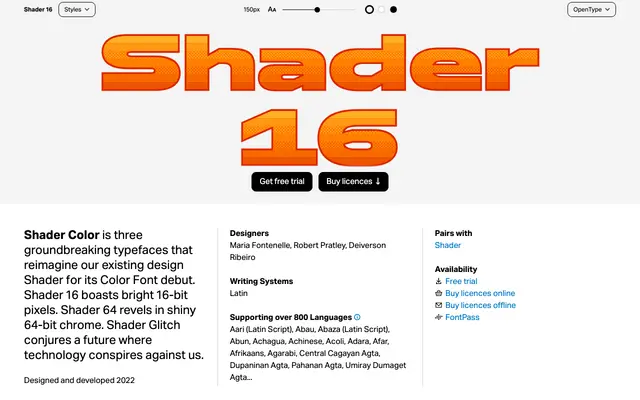
Shader Color
Dalton Maag · Maria Fontenelle, Robert Pratley, Deiverson Ribeiro · 2022
A trio of colour fonts by Maria Fontenelle, Robert Pratley and Deiverson Ribeiro that take the Shader gaming sans into 16-bit pixels, 64-bit chrome and glitch.
A colour-font extension of the Shader esports family by Maria Fontenelle, Robert Pratley and Deiverson Ribeiro. Three styles cover Shader 16 with bright 16-bit pixel artwork, Shader 64 in shiny 64-bit chrome and Shader Glitch with a corrupted, distorted treatment. Each style ships as a single colour font intended for posters, broadcast graphics, esports identity and any gaming context that wants ready-made texture rather than a layered build.
Dalton Maag describe Shader Color as three groundbreaking typefaces that reimagine the existing Shader design for its colour-font debut, naming Shader 16 (16-bit pixels), Shader 64 (64-bit chrome) and Shader Glitch (a future where technology conspires against us).